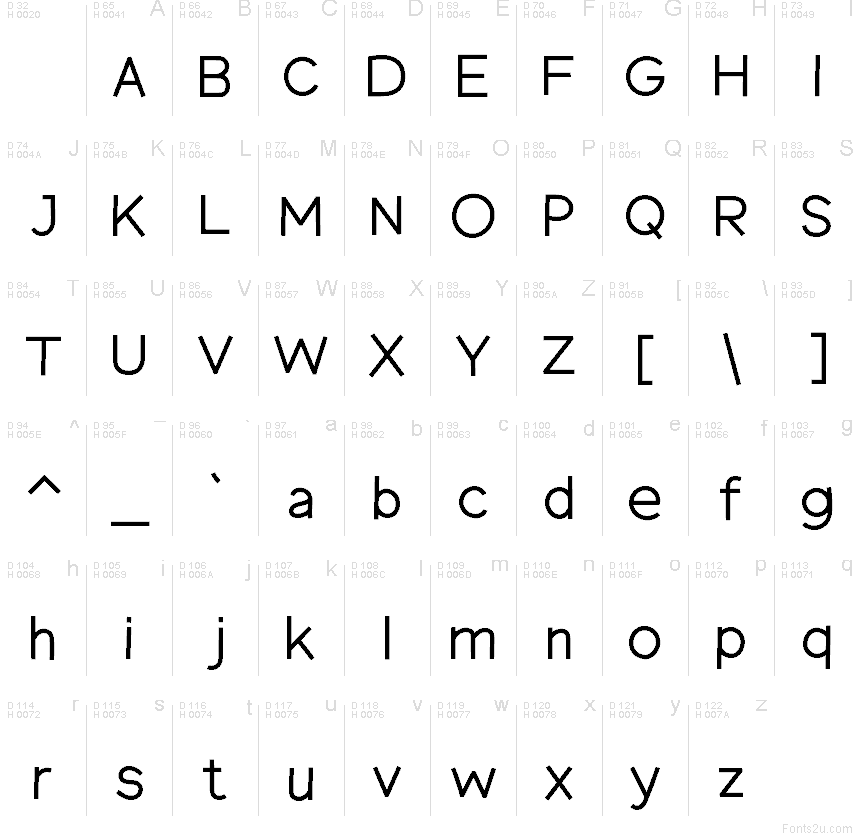
Courageous
Courageous font by HannaBie Creative Studio is a free modern display sans typeface with an unapologetically sleek, circular rhythm. Its letters feel like they’ve been drawn with a single steady stroke—smooth curves, uniform lines, and just enough openness to keep the wordshape airy instead of cramped. There’s a subtle futurist vibe here: soft, rounded outlines that still read crisp and sharp on screen, giving headlines and wordmarks a confident, contemporary voice.
Using Courageous, you get a clean, minimalist texture that shines on branding, tech or startup logos, app interfaces, bold posters, packaging, and editorial covers. This free font works beautifully when set large, where its even strokes and rounded counters can really breathe. Pair it with a light, neutral sans for body text, and let Courageous handle the loud, attention-grabbing moments in your layout.